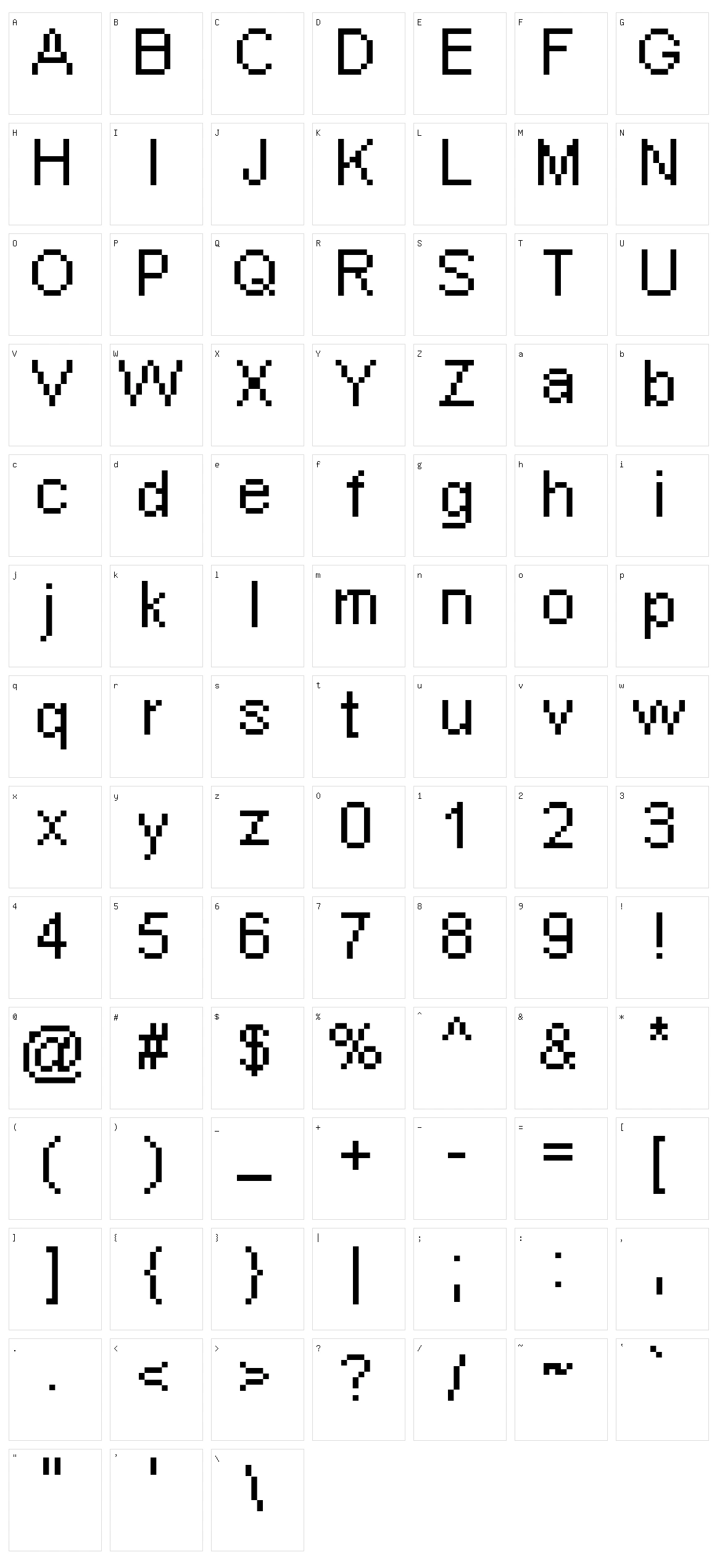
Pixel Arial 11
I created this font specifically with Macromedia Flash in mind.
This font is Arial set at 11px un-antialiased. I take no credit in the design of the original Arial font.
WHY USE THIS?
Well if you play with Flash, you will know there are limitations to their program when it comes to fonts. Even with the option to pixelate the font you selected... it just never comes out exactly right, so this font is for the picky people who would like a font that is pixelated and Arial and Bold.
The font covers the basic symbols that are found on a US keyboard.